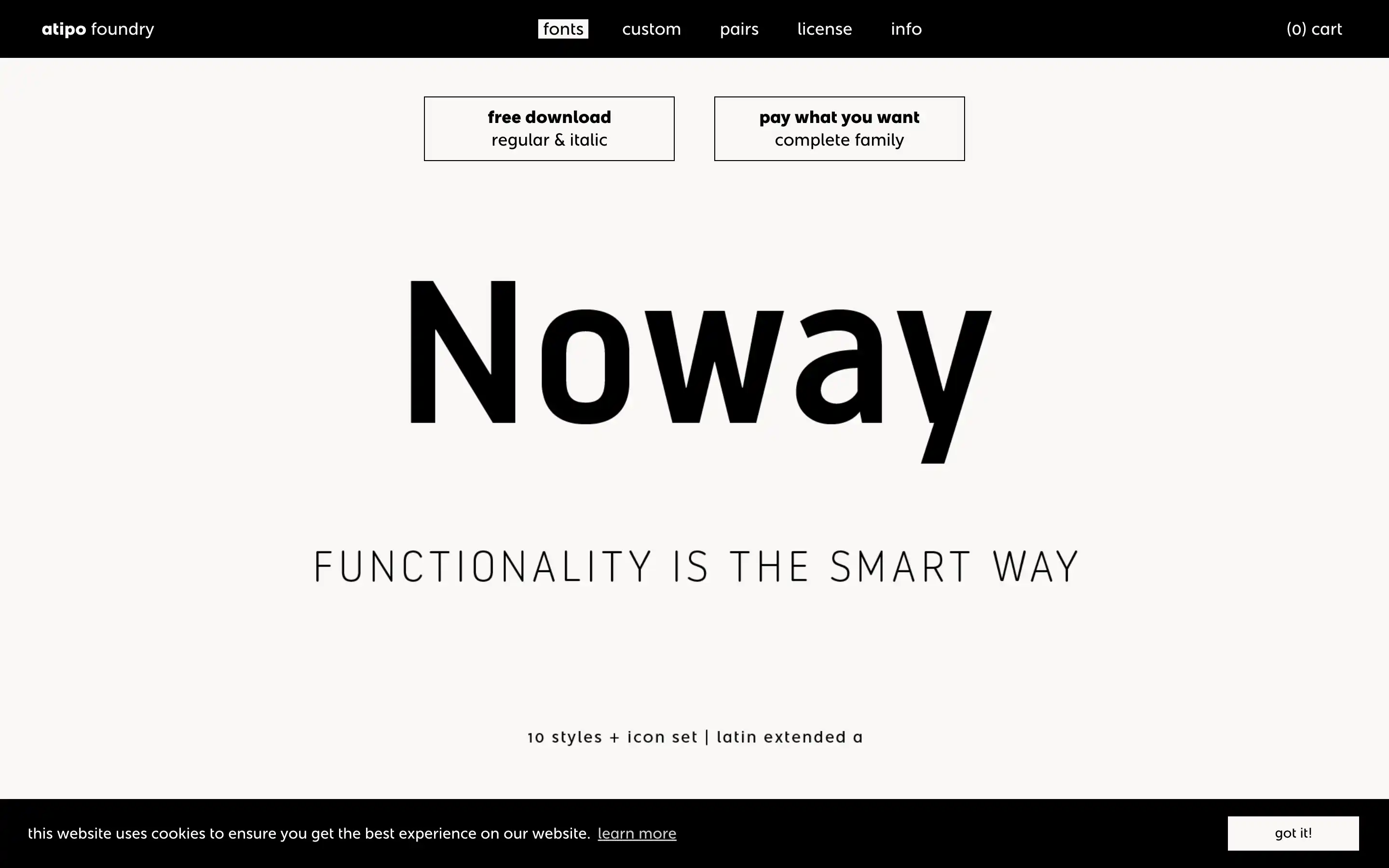
Noway is a free font family with many features, including tabular figures, slashed zeros, fractions, superiors, ordinals, and support for over 50 languages. The font is designed for various applications, from financial reports to scientific documents. The pay what you want model allows users to download the complete font family and contribute what they can.
Noway Font Family
A versatile free font family featuring advanced typographic features and support for over 50 languages, available for download.